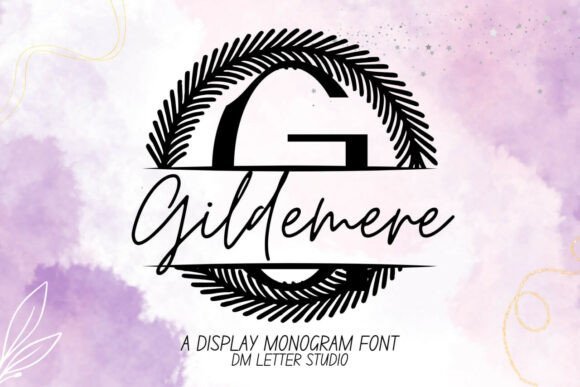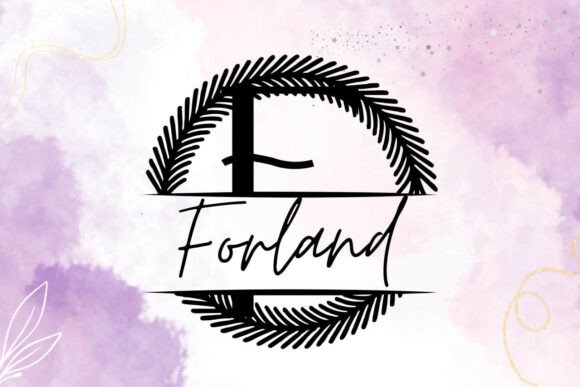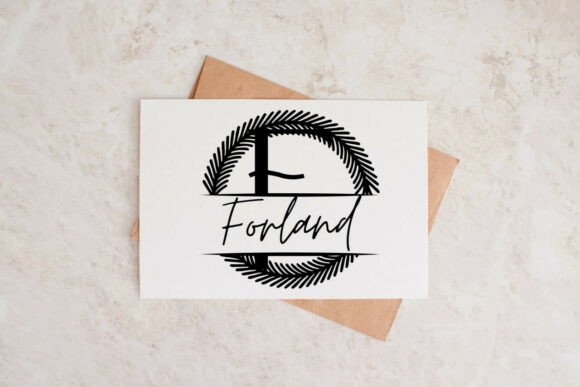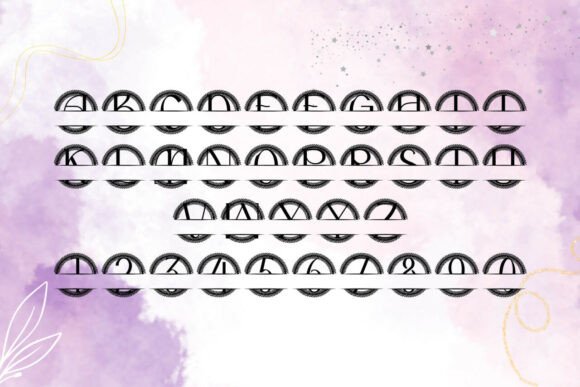
Unlock the Art of Personalized Design with the Gildemere Split Monogram Font
Have you ever stared at a blank piece of paper, eager to create something truly special, but unsure where to start? Maybe it’s a customized gift for a loved one’s birthday, or a unique wedding invitation that reflects your personality as a couple. Whatever the occasion, the Gildemere Split Monogram Font is here to help you turn your ideas into stunning, one-of-a-kind designs.
This refined font is a game-changer for designers and creatives, offering a simple yet sophisticated solution for personalized design. With its clean letterforms and precise horizontal split, the Gildemere Split Monogram Font instantly elevates any initial into a beautiful, name-ready emblem. Whether you’re working on a small project or a large-scale design, this versatile font is sure to impress.
Gildemere Split Monogram Font Key Features
- Font Family: Gildemere Split Monogram Font is a unique, hand-crafted font designed for creating elegant monograms and titles.
- Unique Characteristics: Features a split monogram design, allowing for creative and personalized monogram creation, perfect for special occasions and events.
- Character Set: Includes a wide range of characters, including uppercase and lowercase letters, numbers, and special characters, making it versatile for various applications.
Gildemere Split Monogram Font Review
I’ve had the chance to work with the Gildemere Split Monogram Font and overall, I’m impressed with its unique style. Here are some key points to consider:
- ✨ Unique split monogram design that can add a touch of elegance to your projects
- ✨ Wide range of customization options, including font sizes, colors, and spacing
- ✨ High-quality vector files that are perfect for both digital and print projects
- ⚠️ Limited character set, which may not be suitable for projects requiring extensive text
- ⚠️ Can be difficult to read in small font sizes or low-resolution images
Overall, I think the Gildemere Split Monogram Font is a great choice for designers looking to add a touch of sophistication to their projects. While it may have some limitations, its unique design and customization options make it a worthwhile investment.
Use the Gildemere Split Monogram Font to create elegant and sophisticated designs, such as wedding invitations, monogrammed stationery, and branding materials.
Branding materials, such as business cards and logos
Monogrammed gifts and accessories